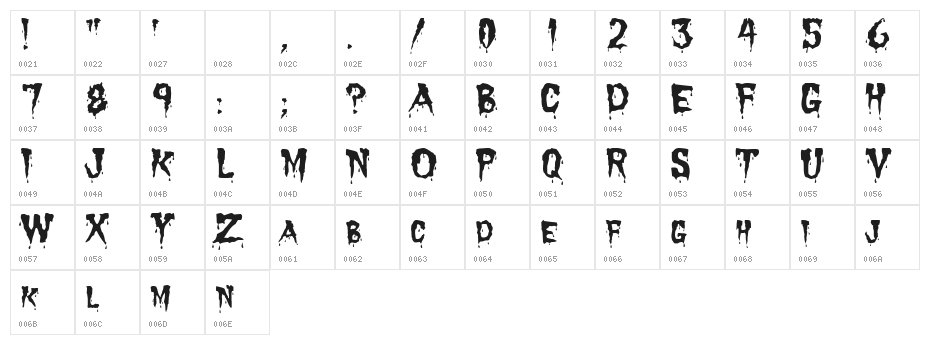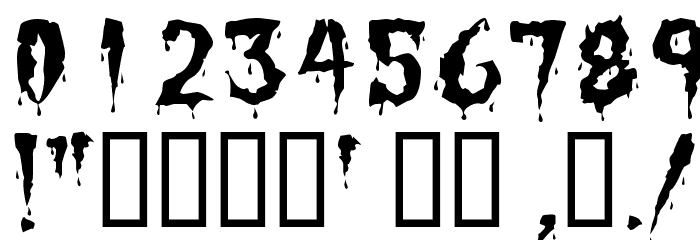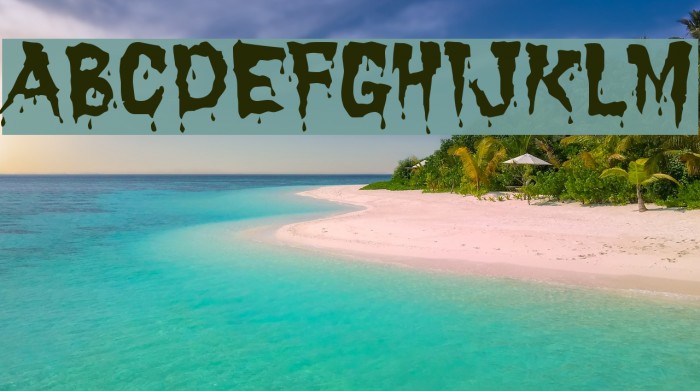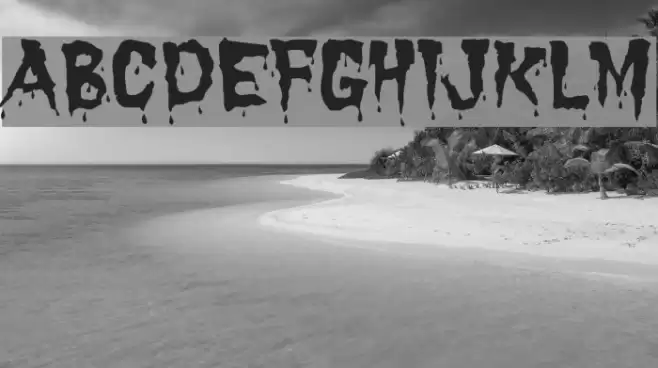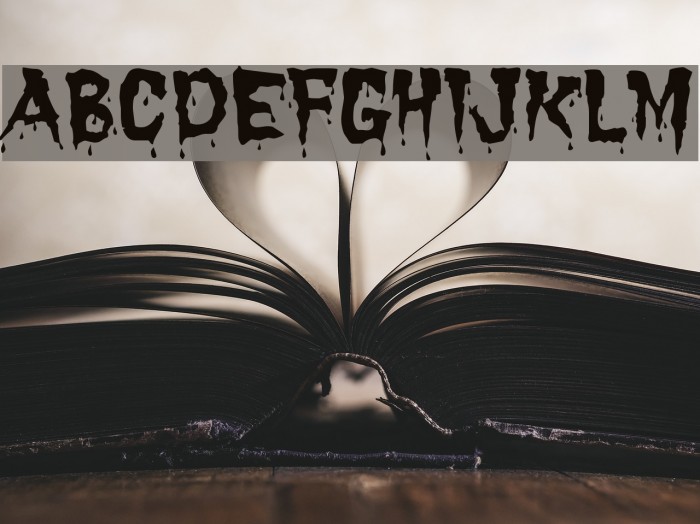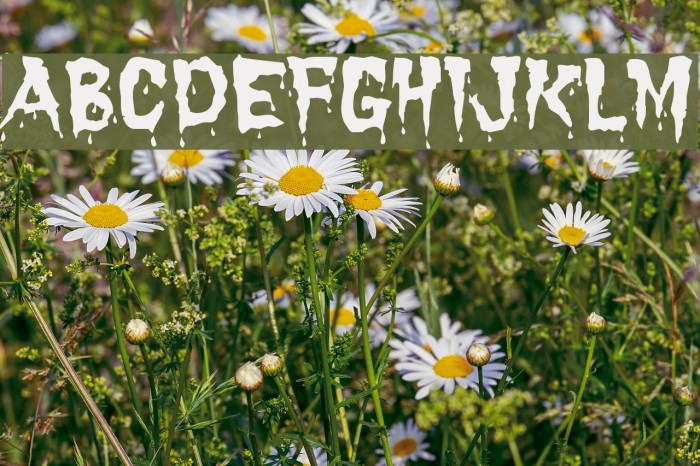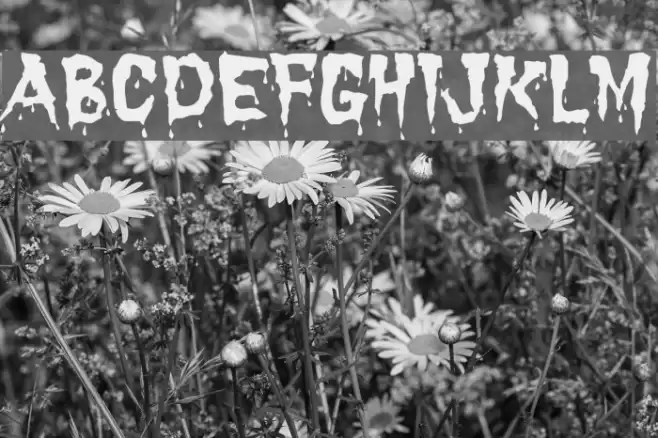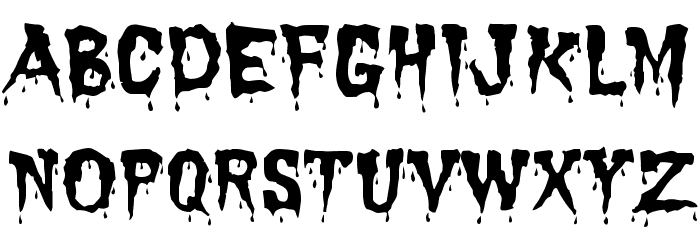
Dracula Font
Dracula Description
This font exudes a spooky and eerie atmosphere, reminiscent of classic horror themes. Each character appears to be dripping, as if formed from a viscous liquid, enhancing its unsettling aesthetic. The uppercase and lowercase letters maintain a consistent style, with jagged edges and irregular shapes that contribute to its haunting appearance. The numerals and special characters follow the same design principles, ensuring a cohesive look across all glyphs. This font is perfect for creating a chilling and dramatic effect, ideal for Halloween-themed projects or any design that requires a touch of the macabre.
| Proposed Projects | Ideal for Halloween invitations, horror movie posters, haunted house flyers, and spooky event branding. |